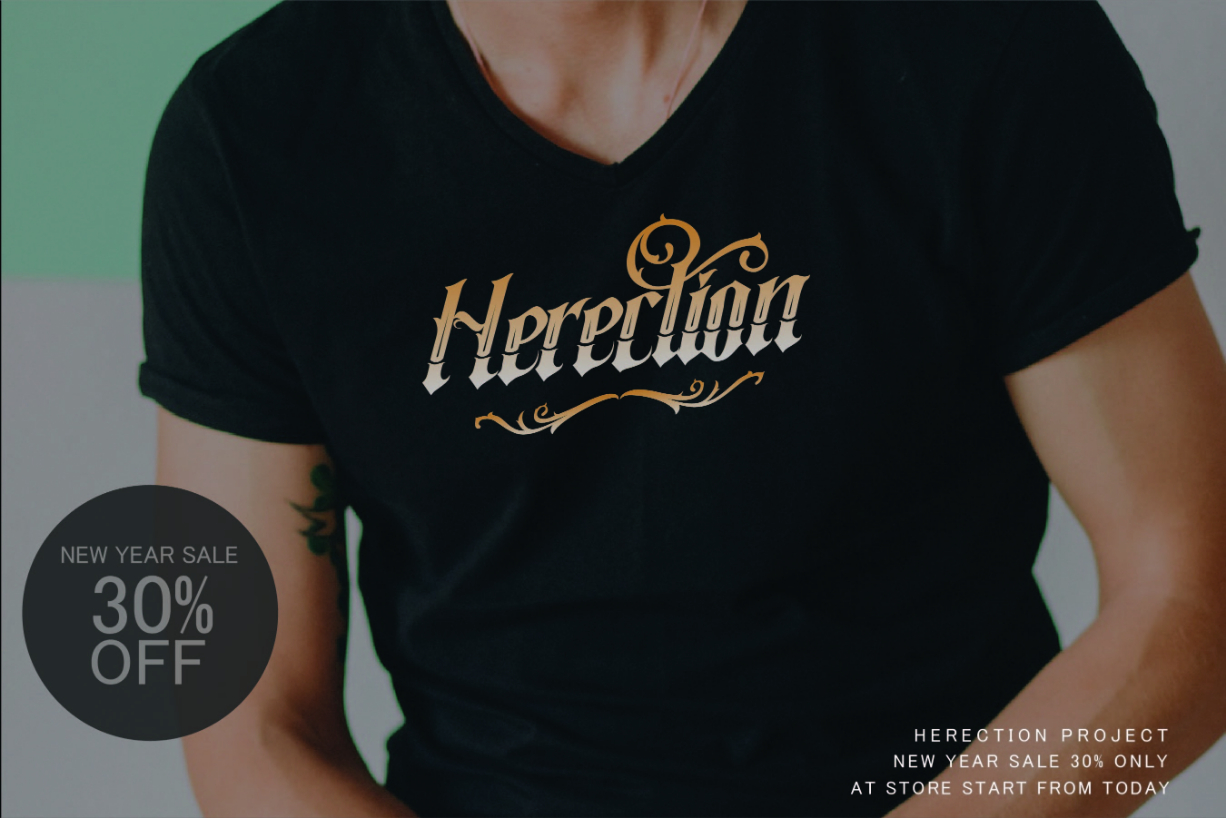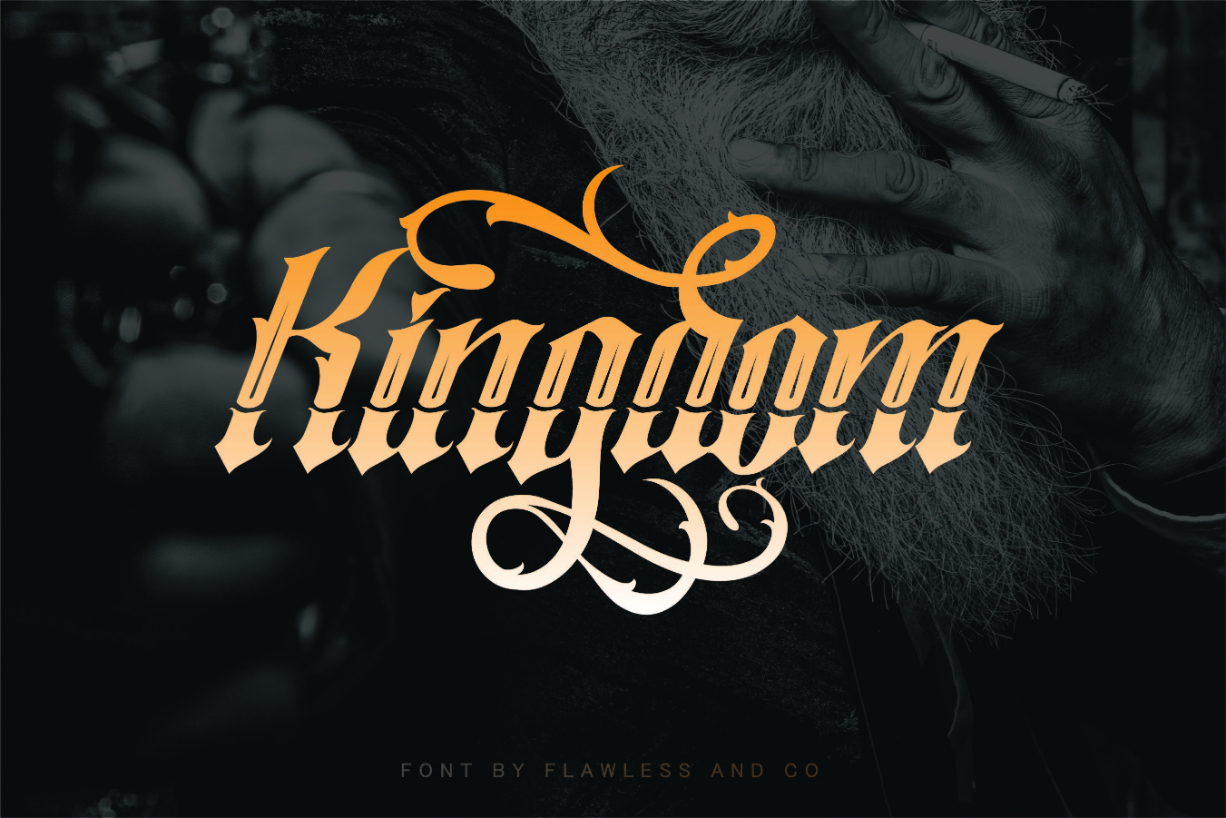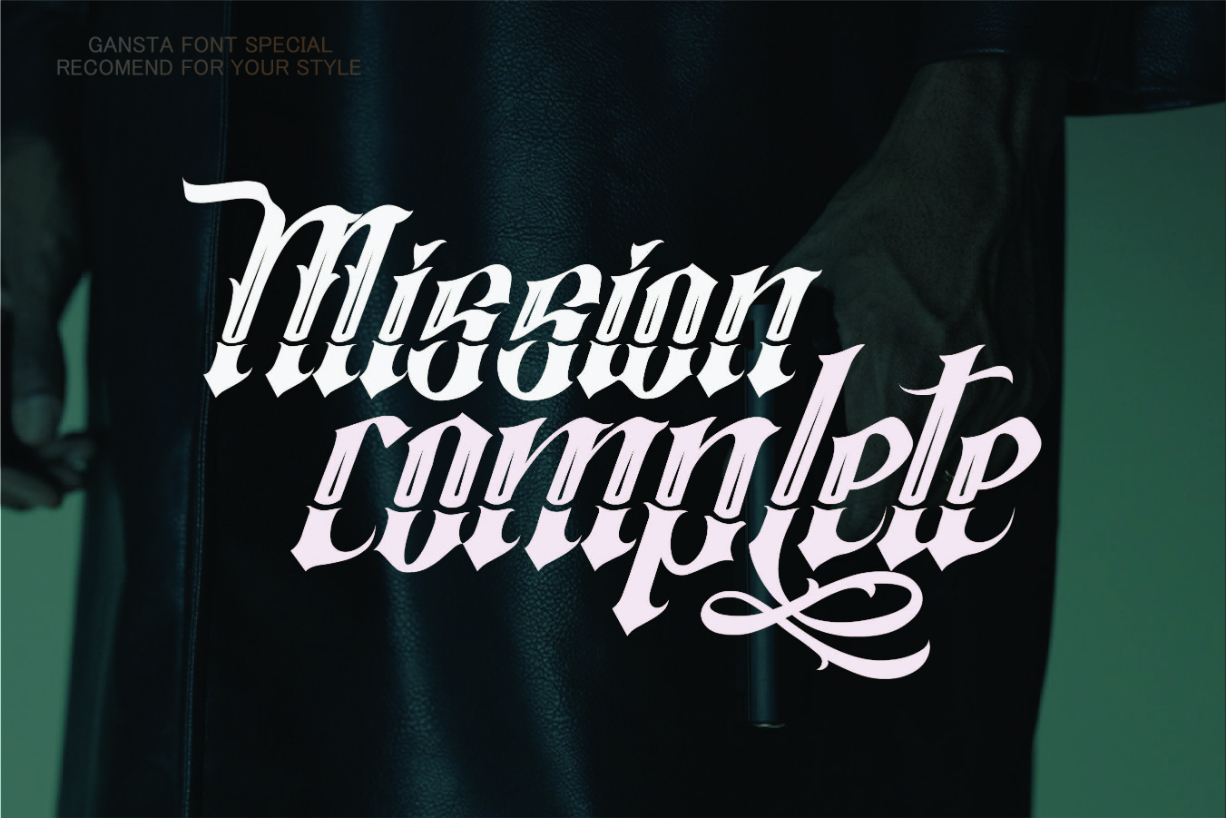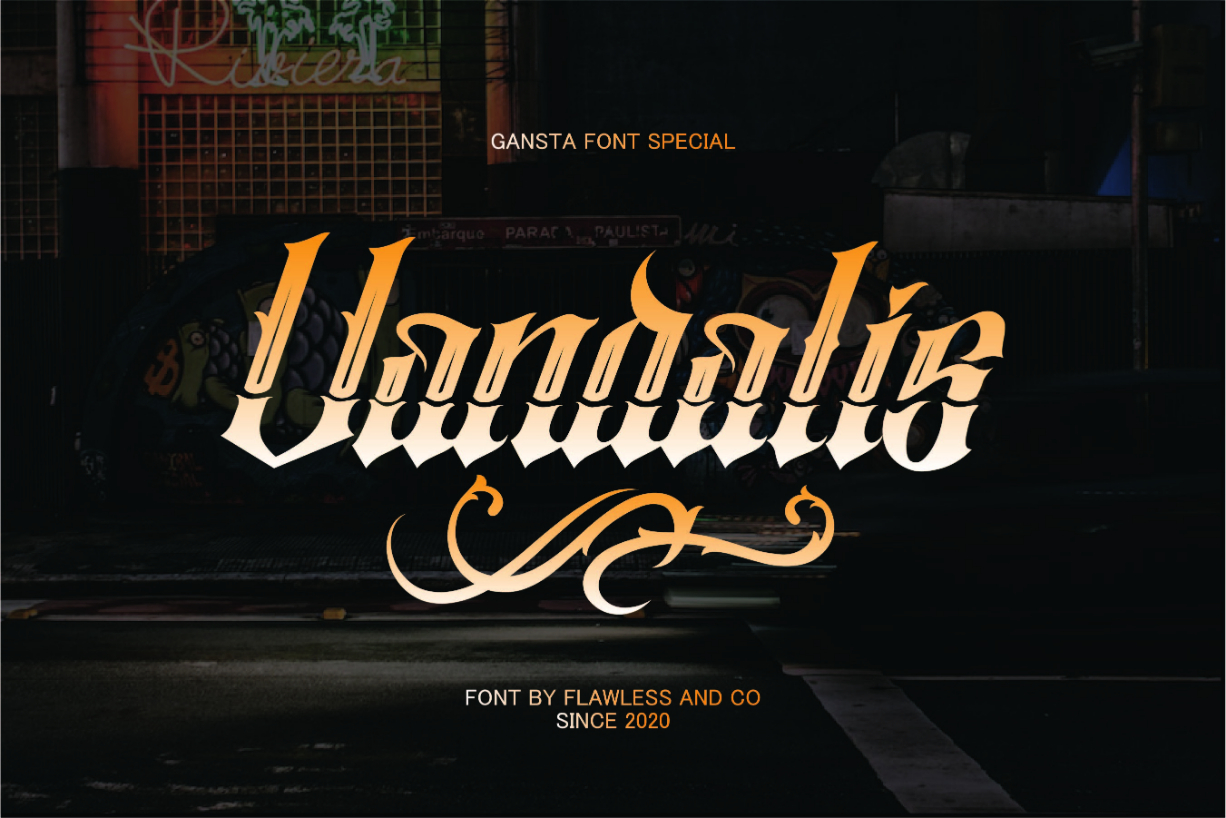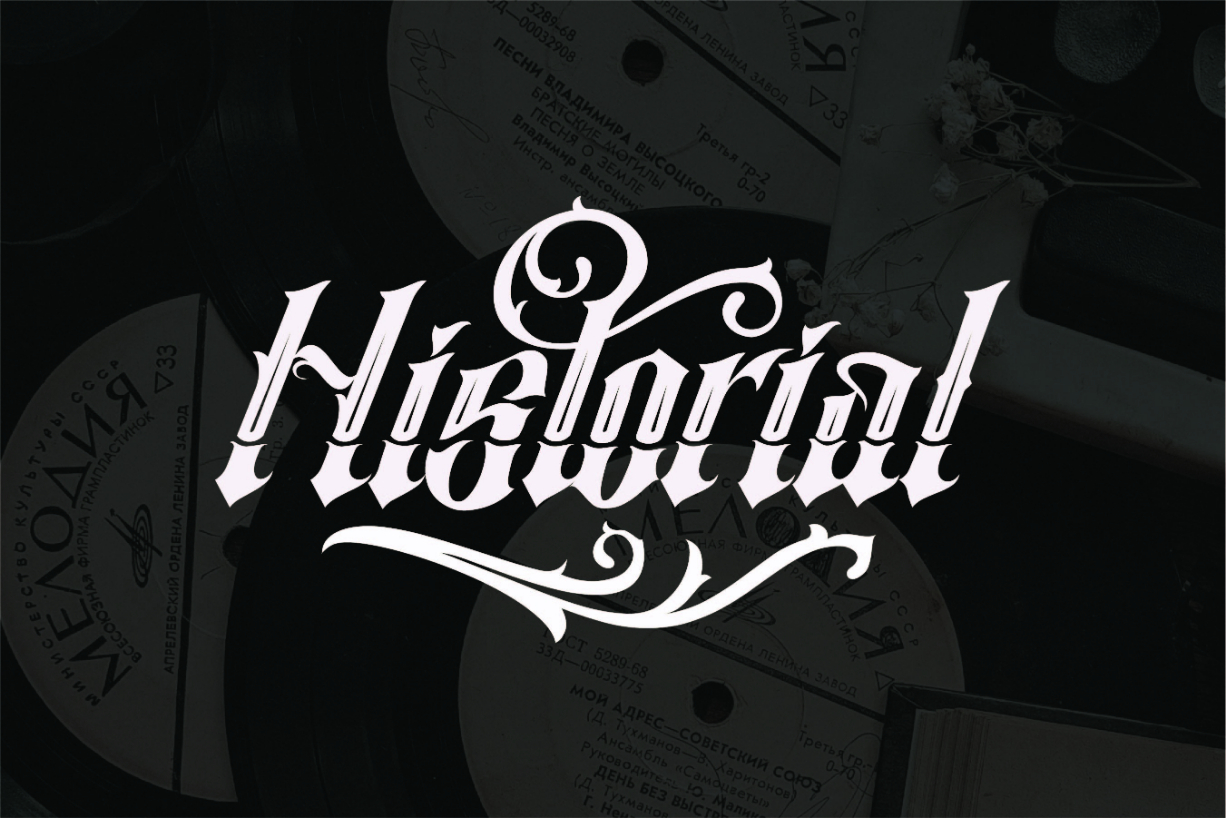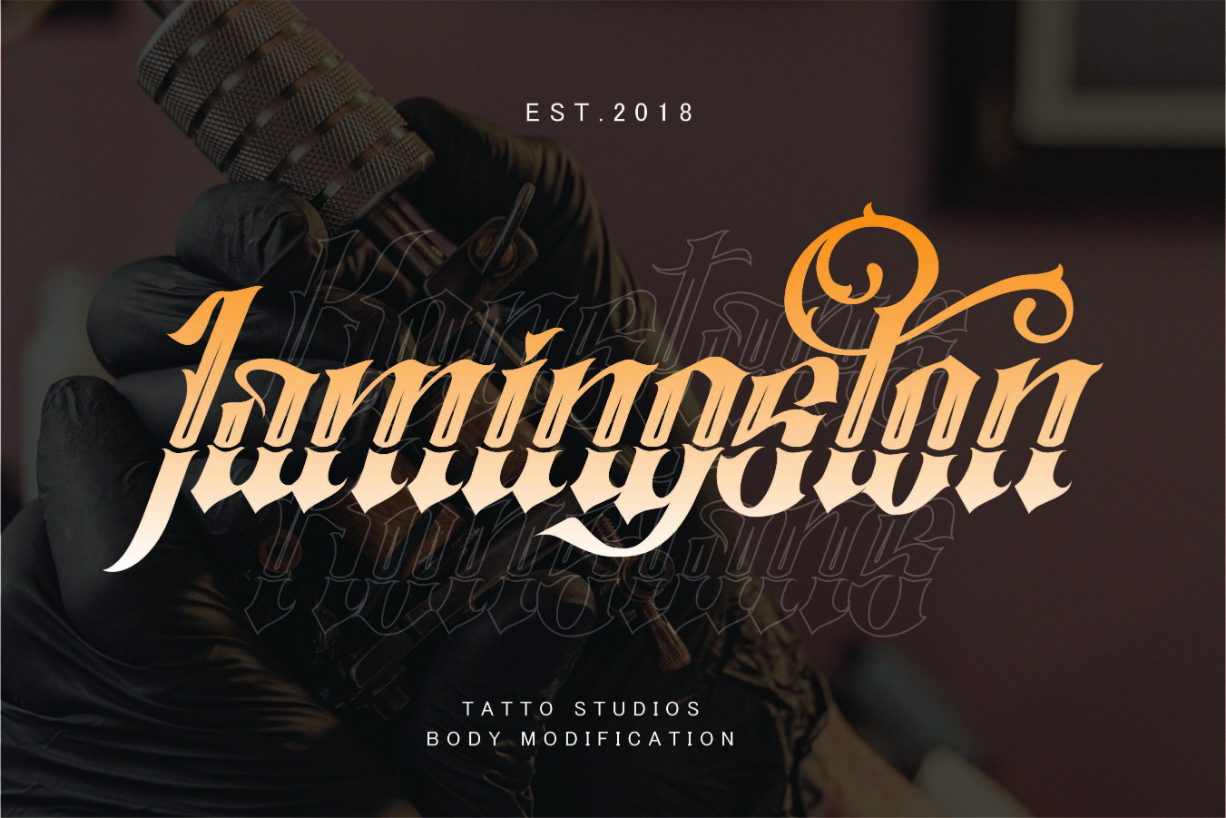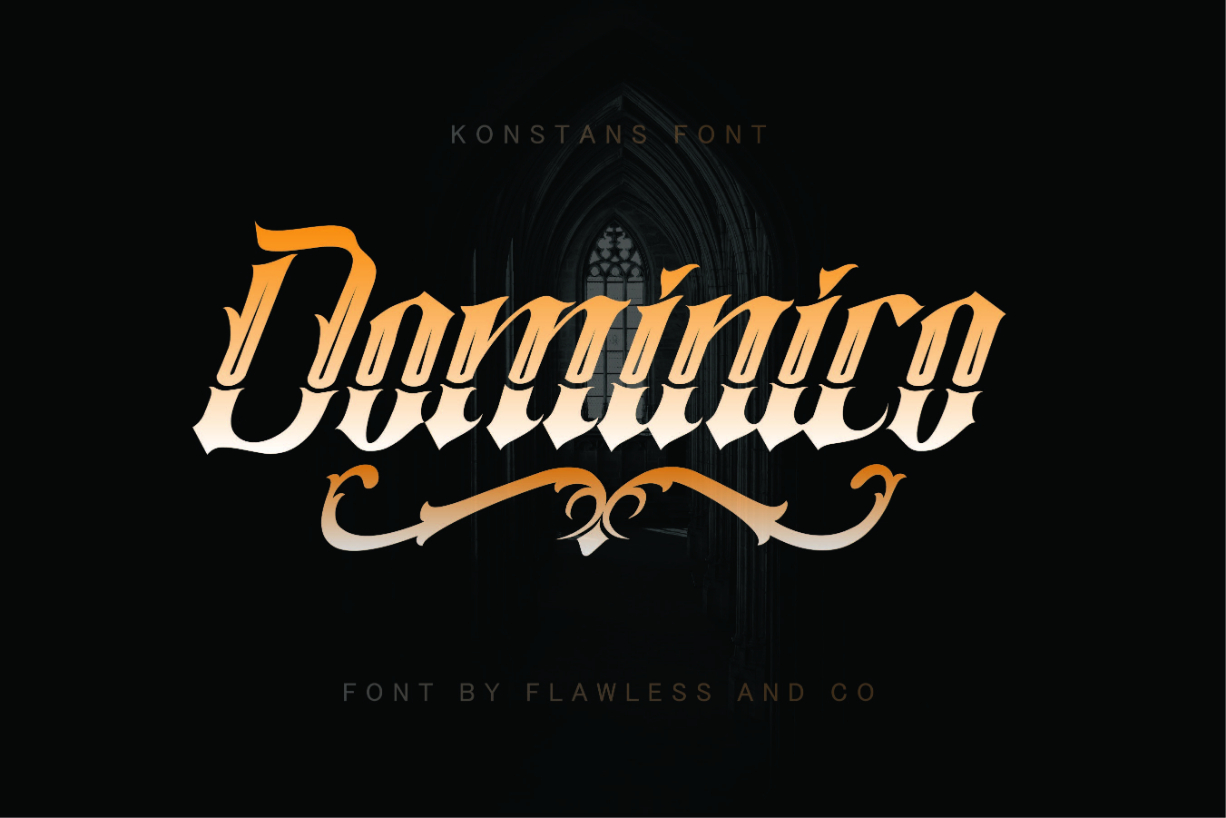
Konstans Font
About Konstans Font
Konstans is the one Blackletter font. Its authentic and unique style on each character gives a bold touch to any design you create such as poster design, branding materials, t-shirts, business cards, logos, photography, quotes, and more. Try out some alternate characters for another visual result!